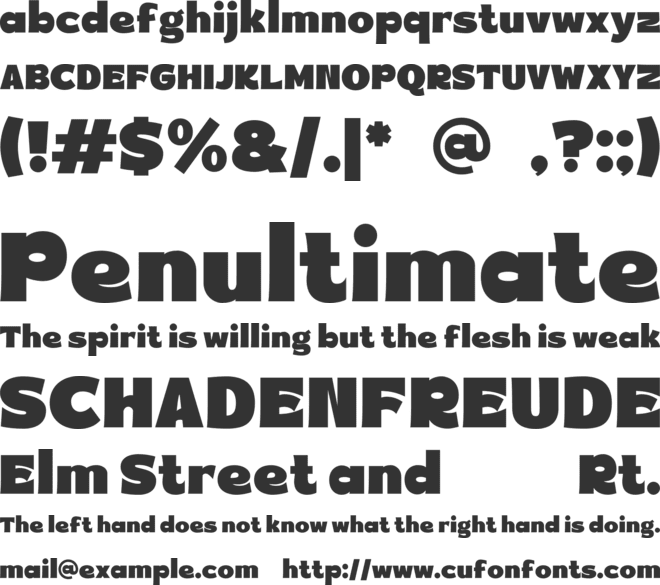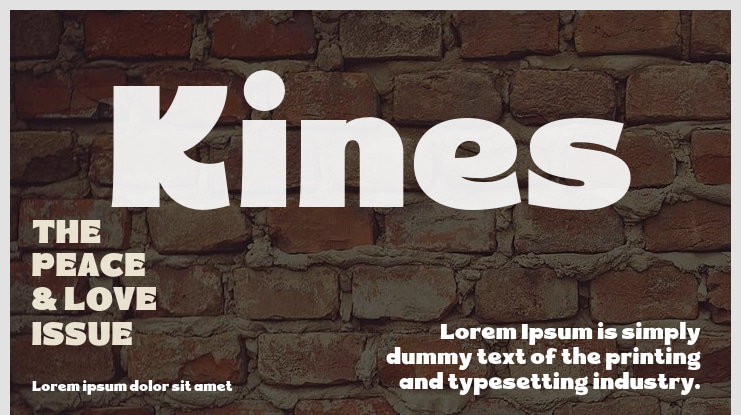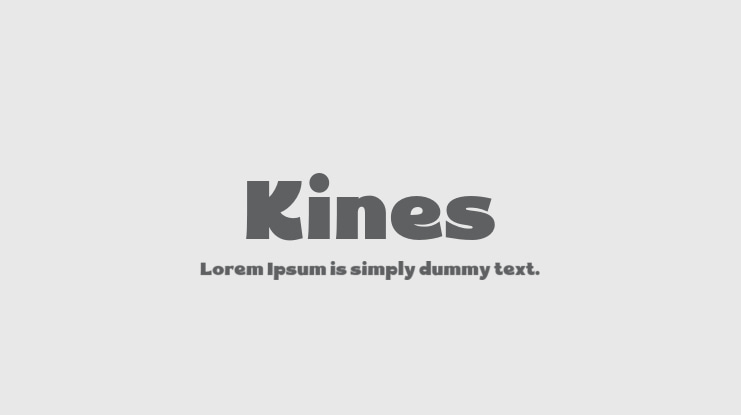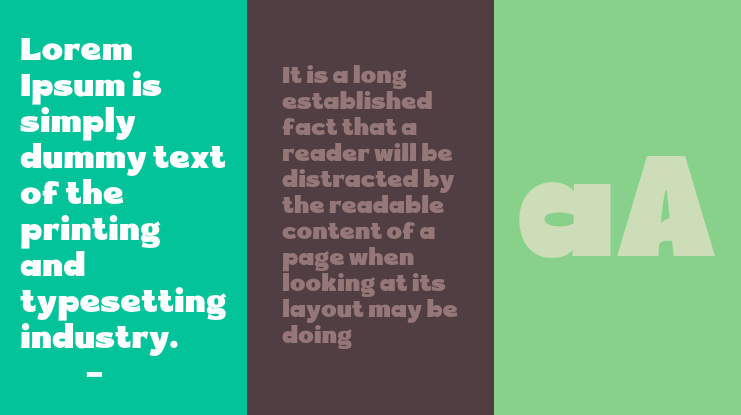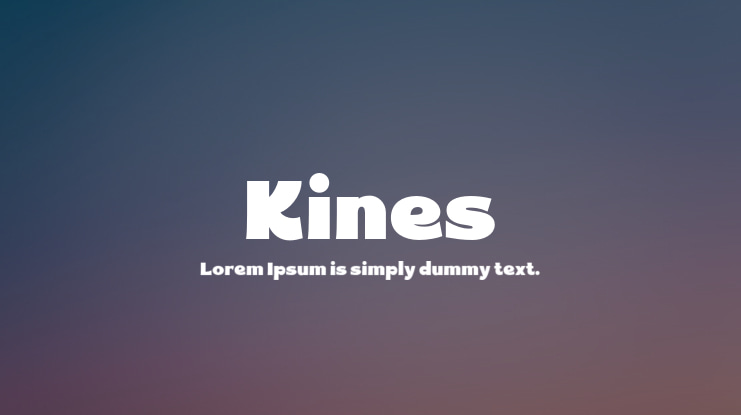
Kines Font
Kines is the newest sans-serif display typeface, inspired by retro and bold design elements. The entire typography is crafted to perform exceptionally well in large sizes, making it ideal for posters, zines, stickers, and t-shirts.